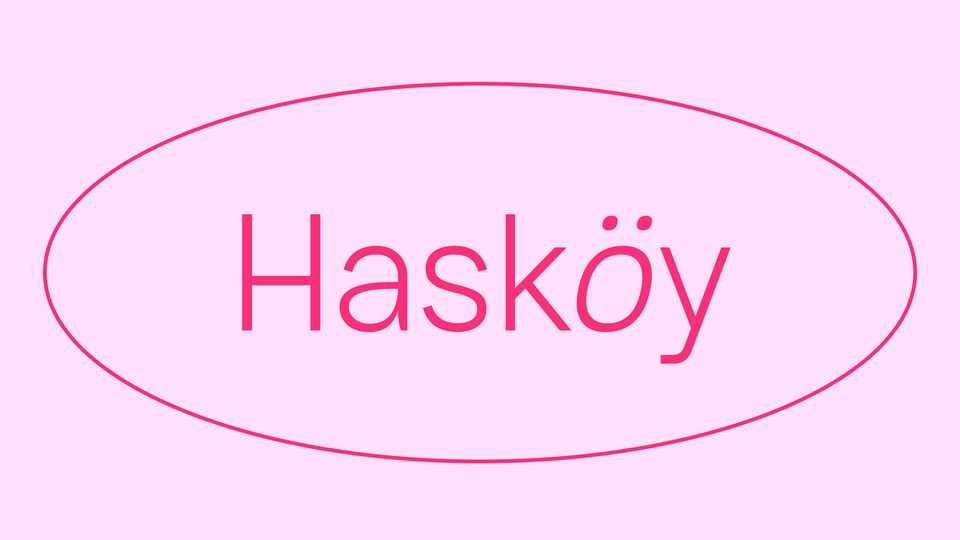
Download Hasköy typeface a versatile variable sans serif font family with 16 styles. Designed with powerful OpenType features and each weight includes Latin-extended language support, stylistic alternates, fractions, tabular figures, arrows and more.
Designer: Ertekin Erdin